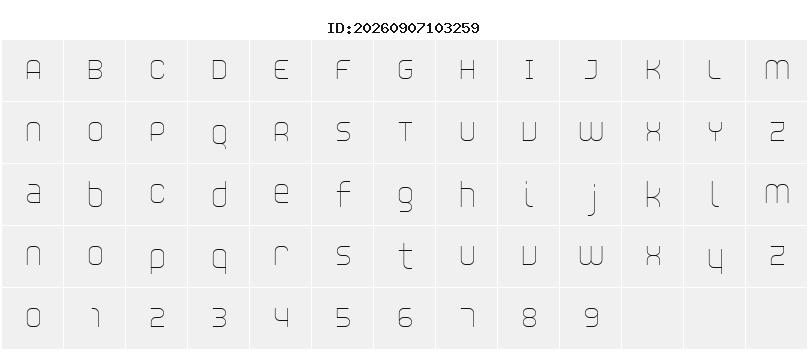
Unisect Preview
• Font Name: Unisect
• Designer: Michael Cina
• Manufacturer: YouWorkForThem
About Unisect.ttf
Unisect.ttf is a modern, elegant sans-serif font designed for ultimate readability and visual harmony. Perfect for branding, headlines, web design, and print materials.